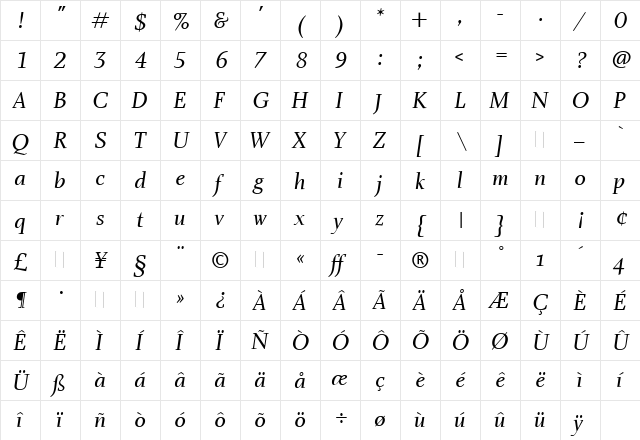
Charlotte Book Italic Regular
Design Context for Charlotte Book Italic Typeface
Charlotte Book Italic takes a measured approach to typography — its balanced proportions and neutral character make it a reliable workhorse for both digital and print work. The slanted form adds forward momentum and visual energy.
Pro Tip: Try Charlotte Book Italic for annotation and caption copy alongside an upright companion — the contrast in angle creates a dynamic but ordered typographic system.